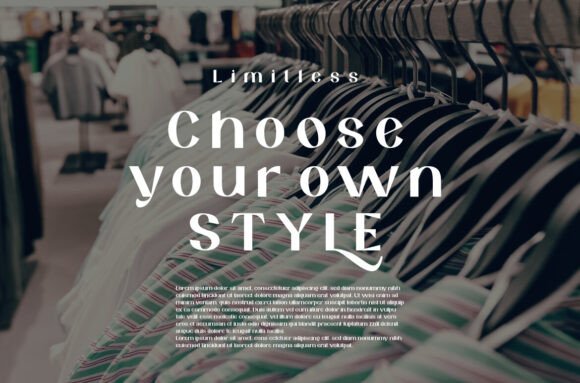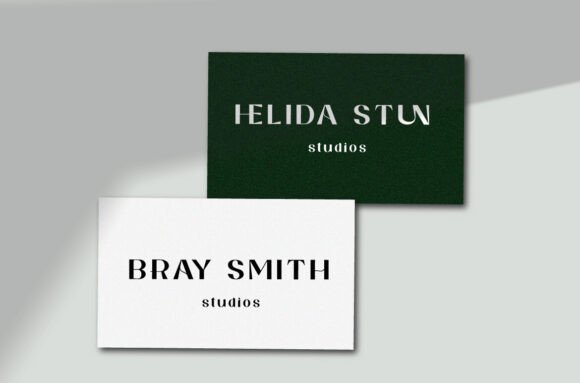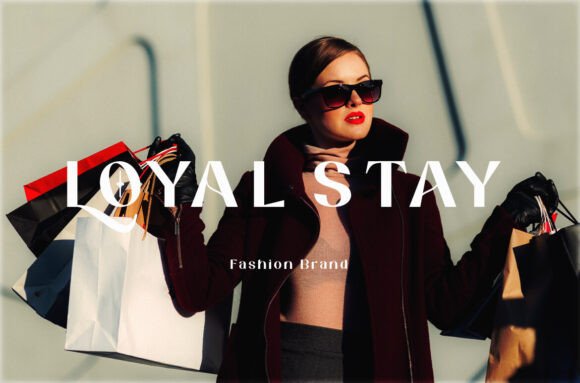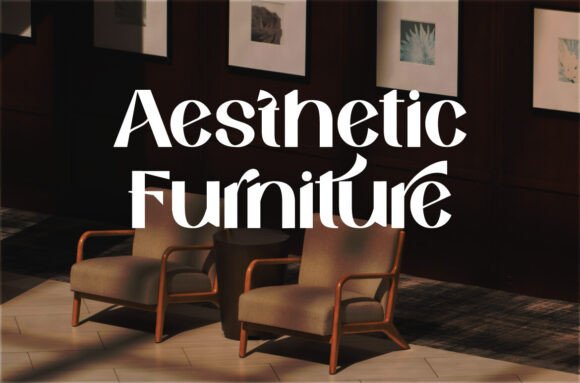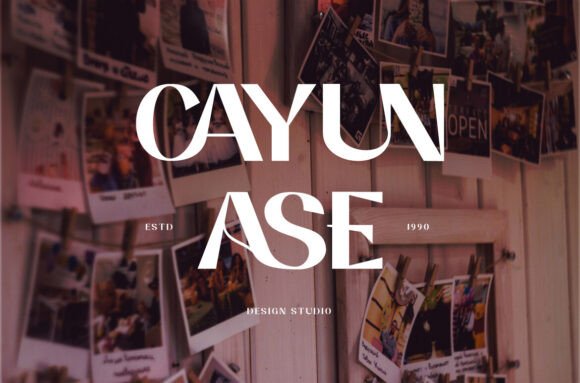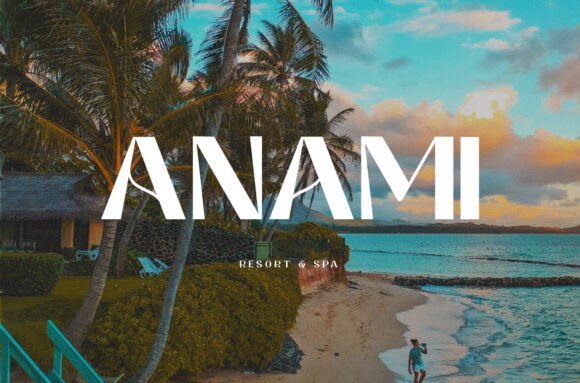
Introducing Canuas Font: The Perfect Blend of Retro and Bold
Are you a designer or crafter looking for a font that embodies the perfect blend of retro and bold? Look no further than Canuas Font. This stylish font is making waves in the design community with its unique blend of thick curves and traditional serifs, giving it a distinctive 70s groovy vibe with a nod to classic typography.
The Inspiration Behind Canuas Font
Canuas Font is the brainchild of a team of designers who sought to create a font that would transport users back to a bygone era. The 1970s were a time of great creativity and self-expression, and the font’s designers wanted to capture the essence of that era. With its thick curves and bold lines, Canuas Font is reminiscent of the iconic typography of the 1970s, while its serifs bring a touch of traditional elegance.
What Makes Canuas Font So Special?
So, what sets Canuas Font apart from other fonts on the market? Here are just a few reasons why designers and crafters are falling in love with this stylish font:
- Retro vibe: Canuas Font’s thick curves and bold lines give it a distinctly retro feel that’s perfect for nostalgic mood boards and vintage logos.
- Bold and eye-catching: This font is not for the faint of heart. Canuas Font is bold, eye-catching, and demands attention.
- Traditional serifs: The serifs on Canuas Font add a touch of classic elegance, making it perfect for designs that require a bit of sophistication.
- Versatile: Canuas Font is versatile and can be used in a variety of design applications, from logos and branding to packaging and advertising.
Using Canuas Font in Your Designs
Canuas Font is incredibly easy to use and can be incorporated into your designs in a variety of ways. Here are a few ideas to get you started:
- Logos and branding: Canuas Font is perfect for creating bold, eye-catching logos and branding materials that demand attention.
- Packaging design: Add a touch of retro flair to your packaging designs with Canuas Font.
- Advertising: Use Canuas Font to create bold, attention-grabbing ads that stand out from the crowd.
- Mood boards: Canuas Font is perfect for creating nostalgic mood boards that evoke the feeling of a bygone era.
Tips for Pairing Canuas Font with Other Fonts
While Canuas Font is stunning on its own, it can also be paired with other fonts to create a unique and visually appealing design. Here are a few tips for pairing Canuas Font with other fonts:
- Pair with a sans-serif: Pairing Canuas Font with a sans-serif font can create a nice contrast and add visual interest to your design.
- Use a script font: Pairing Canuas Font with a script font can add a touch of elegance and sophistication to your design.
- Experiment with different weights: Don’t be afraid to experiment with different weights of Canuas Font to create a unique and visually appealing design.
In conclusion, Canuas Font is a stylish font that is both retro and bold. Its thick curves give a 70s groovy vibe, while its serifs bring a touch of traditional elegance. With its versatility and ease of use, Canuas Font is perfect for designers and crafters looking to add a touch of nostalgia to their designs. Whether you’re creating logos and branding materials, packaging designs, or mood boards, Canuas Font is sure to make a statement.